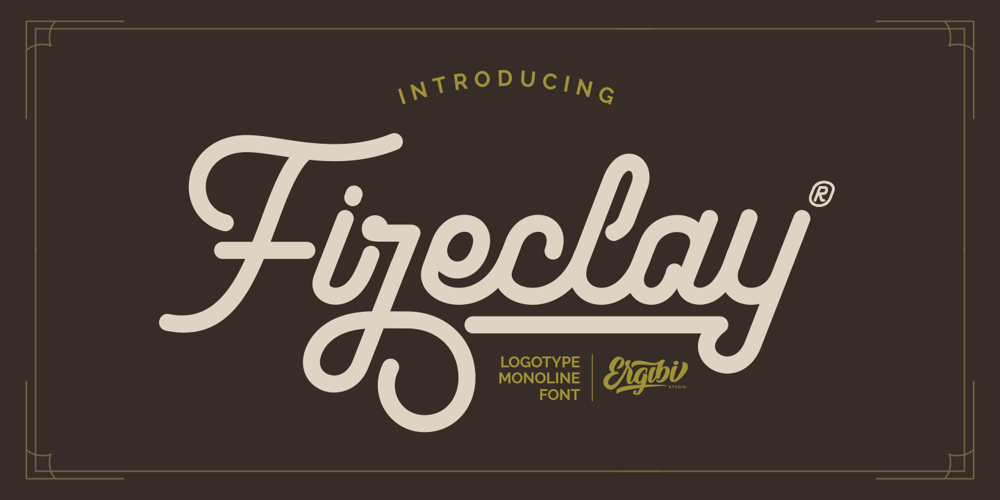
Fireclay
Fireclay font
Fireclay Font Family was designed by Riyadh Rahman and published by Ergibi Studio. Fireclay contains 1 styles and family package options. This font is perfect for logotype, apparel, branding, packaging, advertising and more. This typeface comes in uppercase, lowercase, punctuations, symbols & numerals, stylistic alternate, ending swashes. Also having multilingual support.Fireclay is perfect for logos & branding, photography, invitations, watermarks, advertisements, product designs, stationery, wedding designs, labels, product packaging, special events or anything that requires branding content.Ending the Swash and alternate makes it complete. It comes with several different lengths.It’s easy to access swashKind regards Ergibi Studio